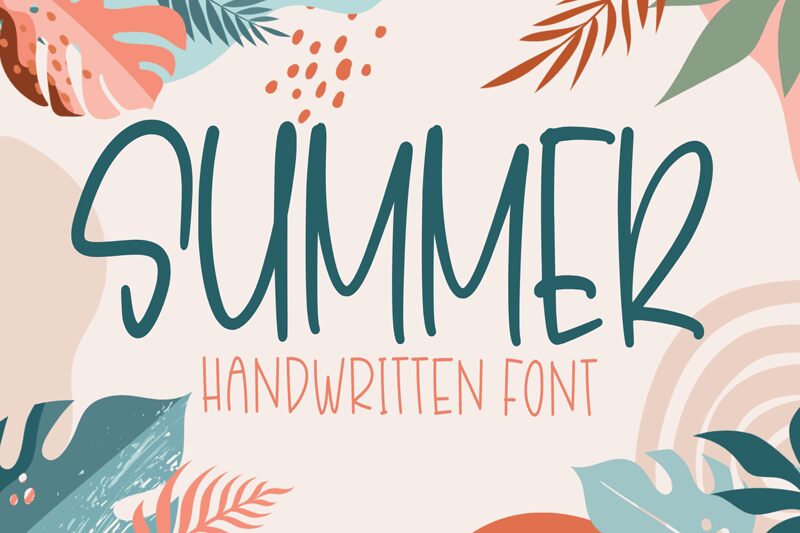
SUMMER
The SUMMER font, designed by Al Ghul, is a delightful handwritten typeface with a semi-light weight and semi-condensed width. Its playful strokes and organic feel make it the perfect choice for projects that aim to evoke warmth, nostalgia, and creativity. From greeting cards and invitations to branding materials and social media graphics, this versatile font adds a touch of whimsy and personal charm. Whether you're designing for a crafty DIY blog or an artisanal bakery, SUMMER will capture attention with its unique handwritten style. Let your imagination run wild with this enchanting typeface!